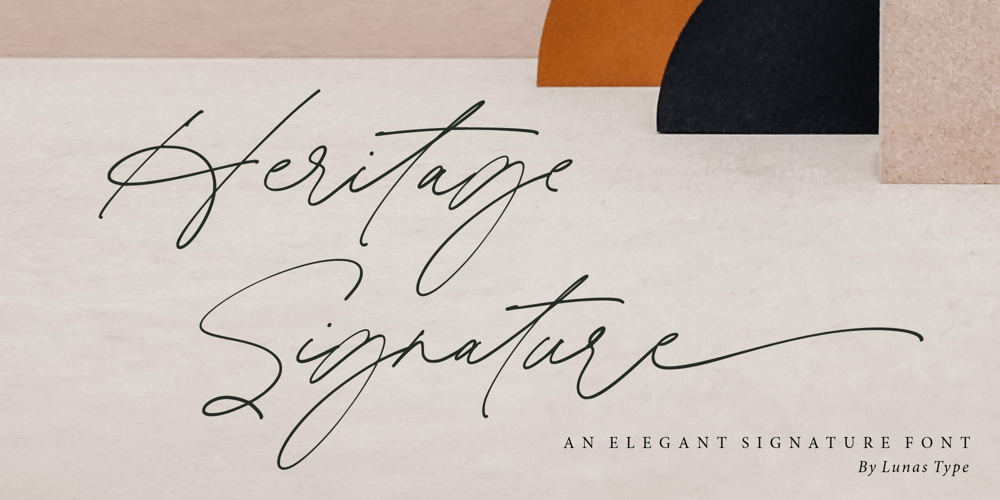
Heritage Signature Font Family was designed by Annas Alam Yahya and published by Lunas Type. Heritage Signature contains 1 styles and family package options. Introducing, Heritage Signature!Heritage Signature is a modern and stylish signature font. This Font have natural flow and unique shape for each letter.Heritage Signature is perfect for many design needs such as merch, T-shirts, signature logo, wedding, book covers, social media posts, websites, events, and many more.What’s you get :– Ending Swashes, beginning swashes, Love connector swashes.– Underline Swashes (just type _1, _2, etc)– Numeral & Punctuation.– ligature.– Multilingual Support.Enjoy Designing!Thanks!Lunas Type